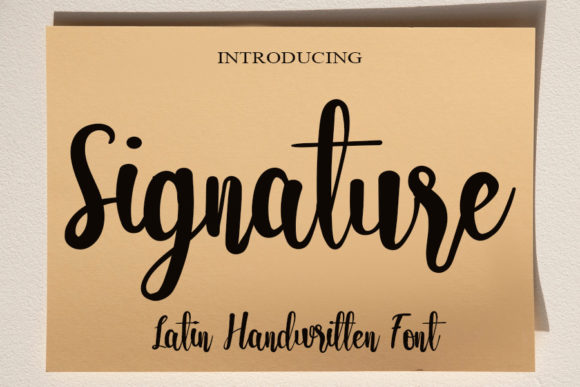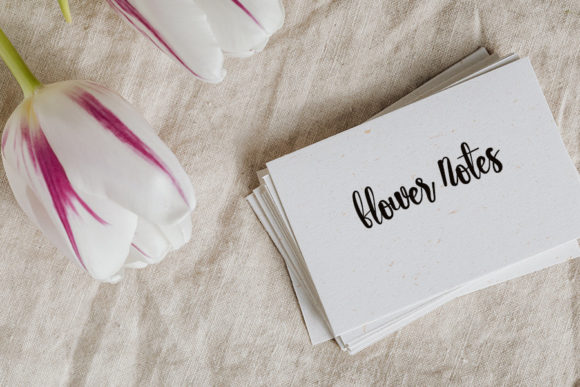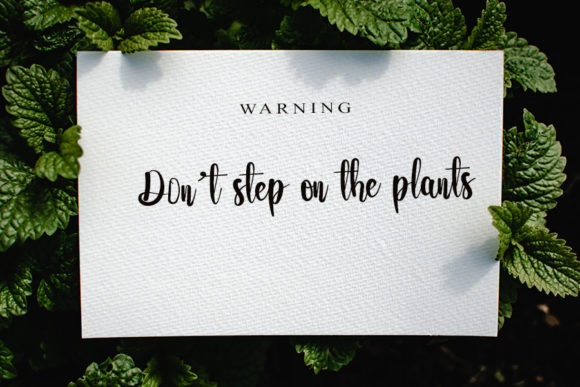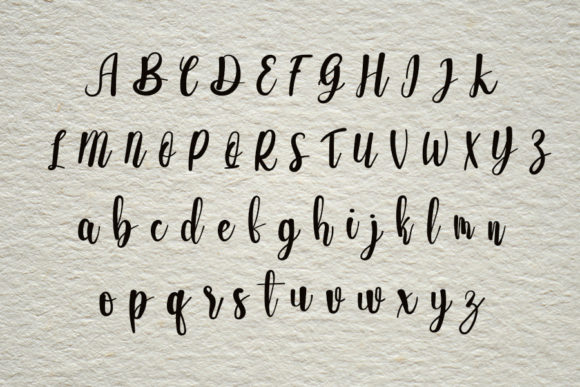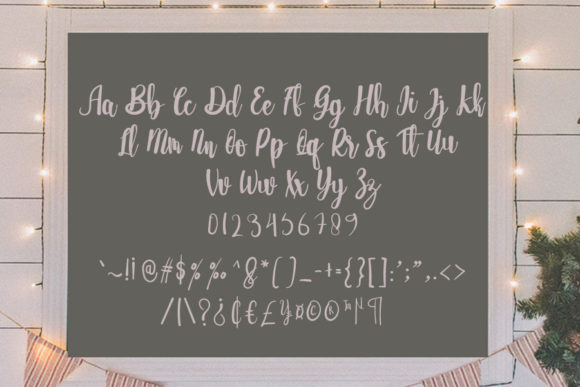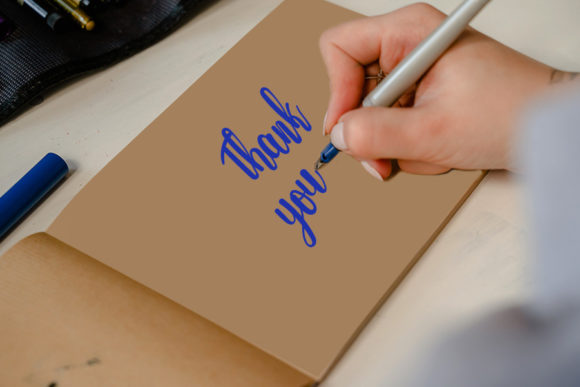
Signature is a gorgeous script font with a modern vibe and spotless form, inspired by a classic calligraphy. Not too thin and not too thick, balanced and varied, this font was designed to enhance the beauty of your projects.